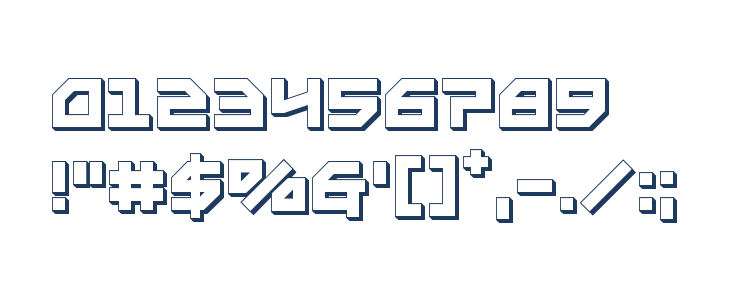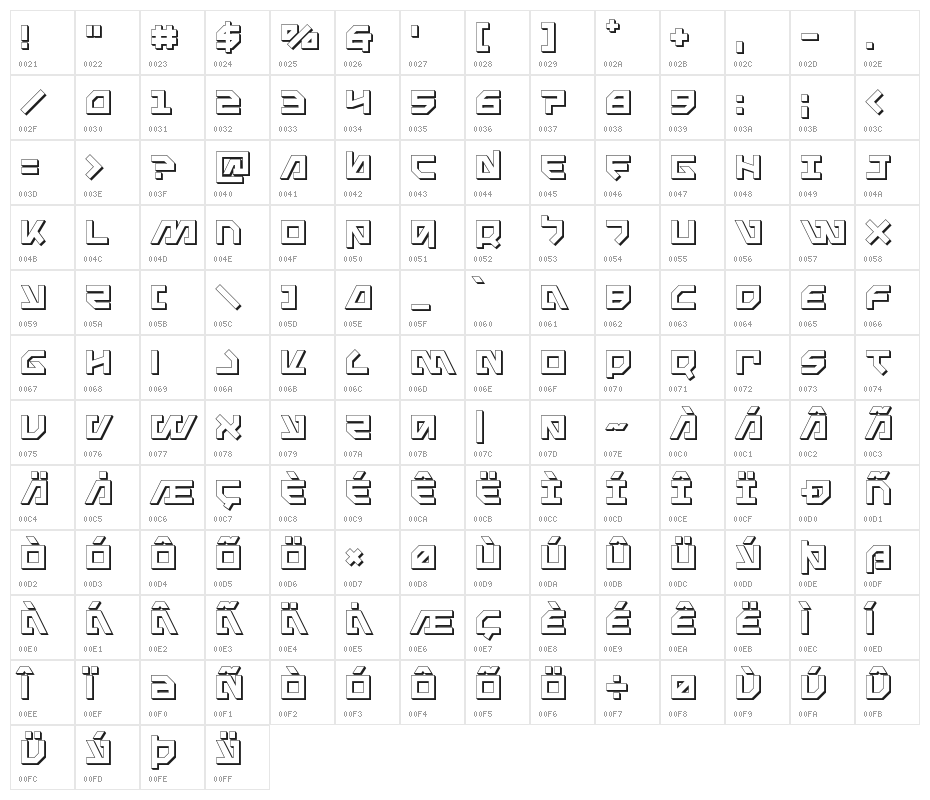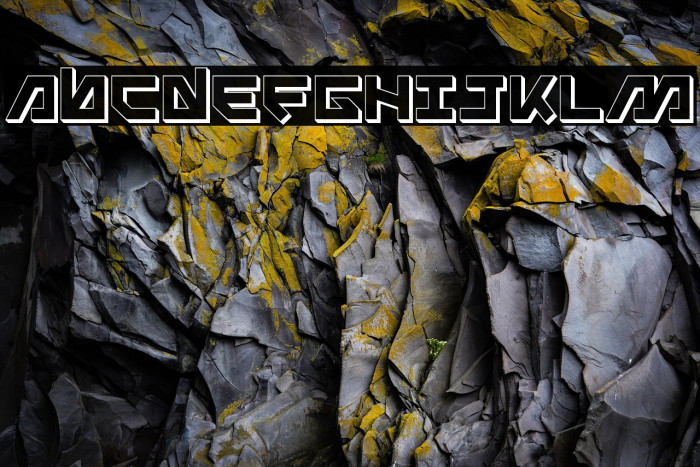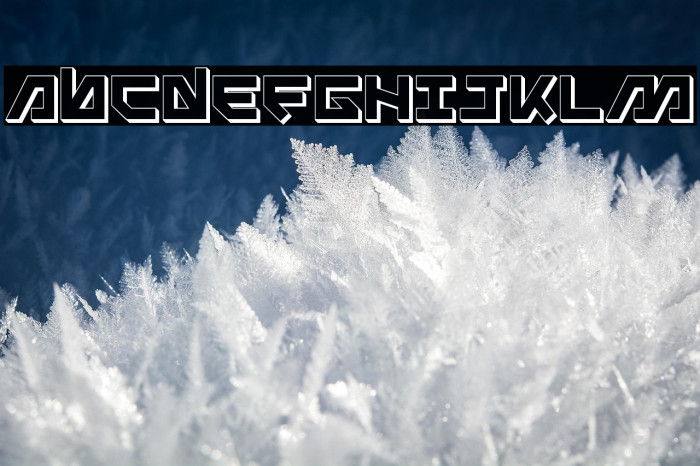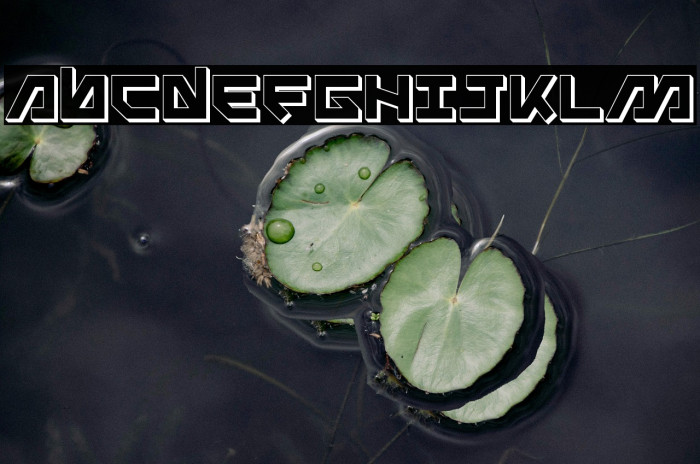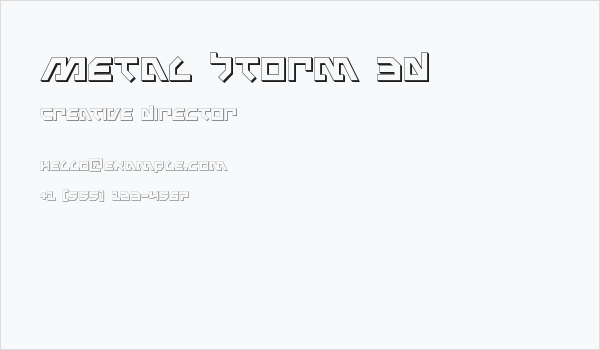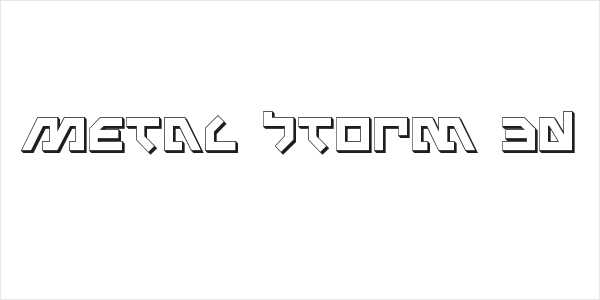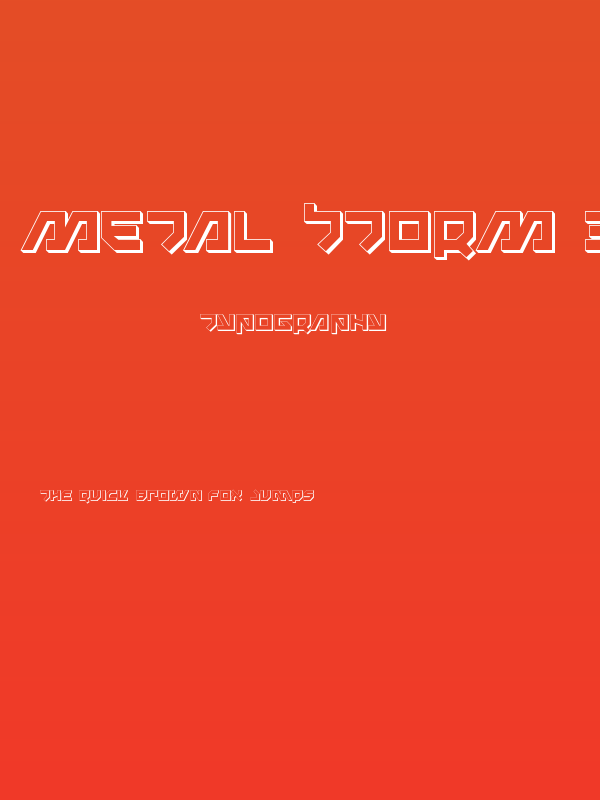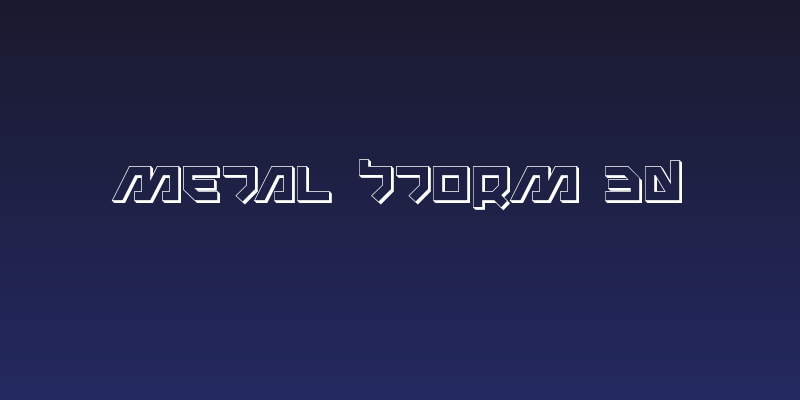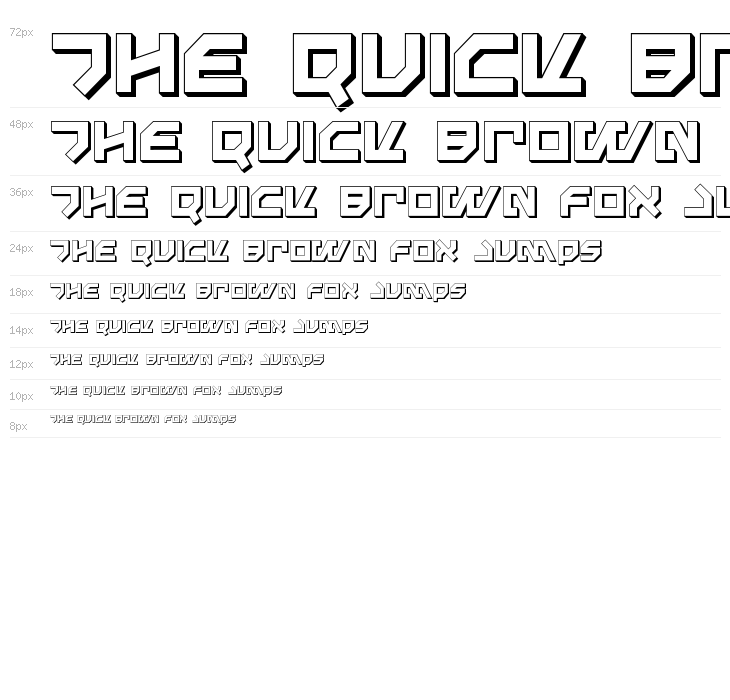
Metal Storm 3D Font
Metal Storm 3D Description
This font features a bold, futuristic design with a three-dimensional effect, giving each character a sense of depth and solidity. The geometric shapes and sharp angles create a dynamic and edgy appearance, reminiscent of sci-fi and technology themes. The uppercase and lowercase letters maintain a consistent style, with uniform stroke thickness and a strong presence. The numerals and special characters are designed to match the overall aesthetic, making this font suitable for projects that require a modern and impactful look.
Overall StyleFuturistic, Modern
Proposed ProjectsIdeal for sci-fi movie posters, video game titles, tech branding, and futuristic event flyers.